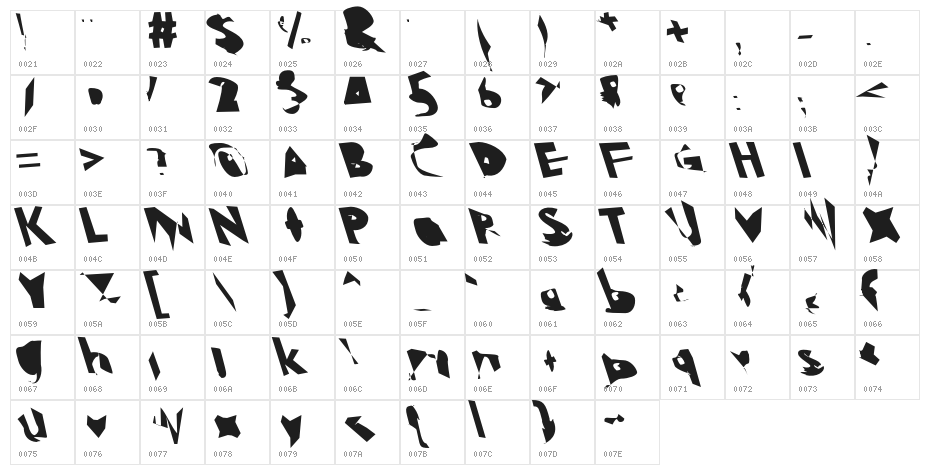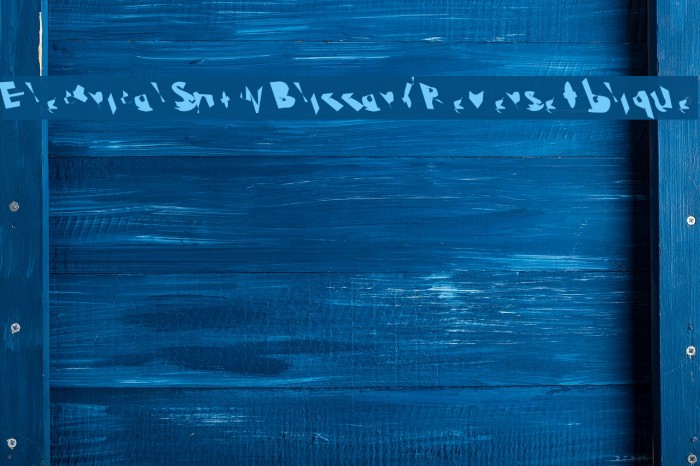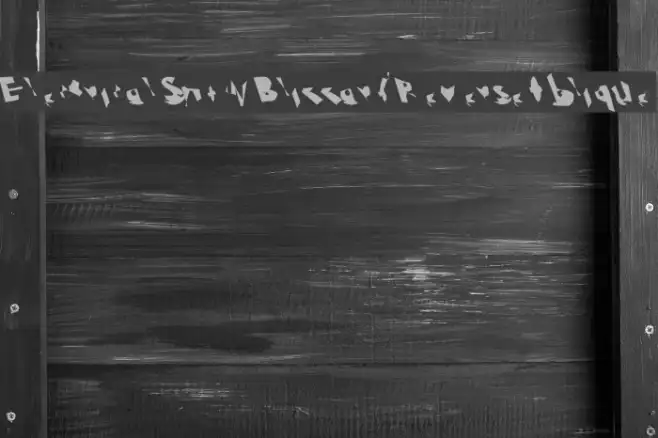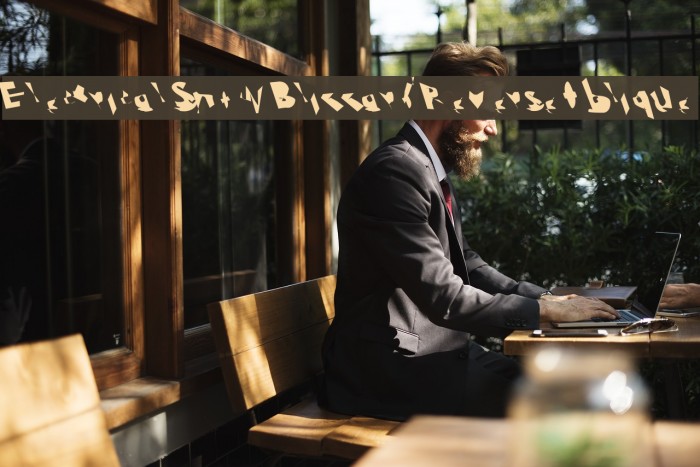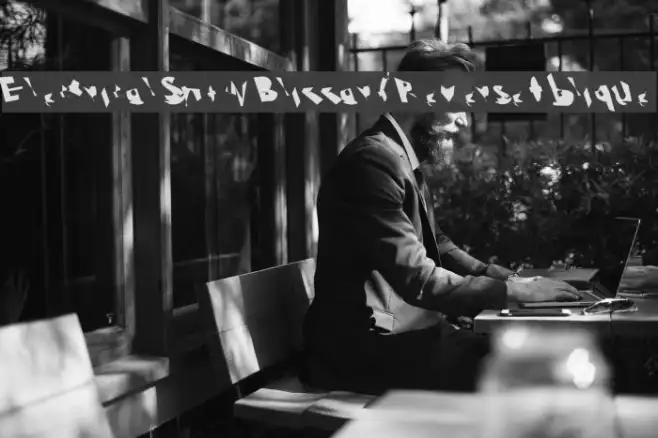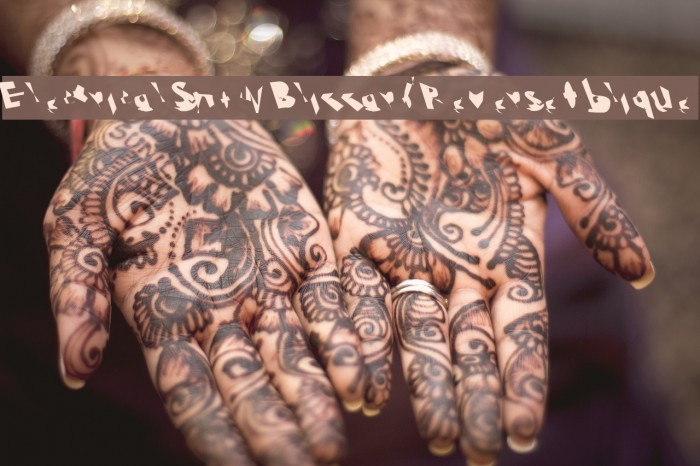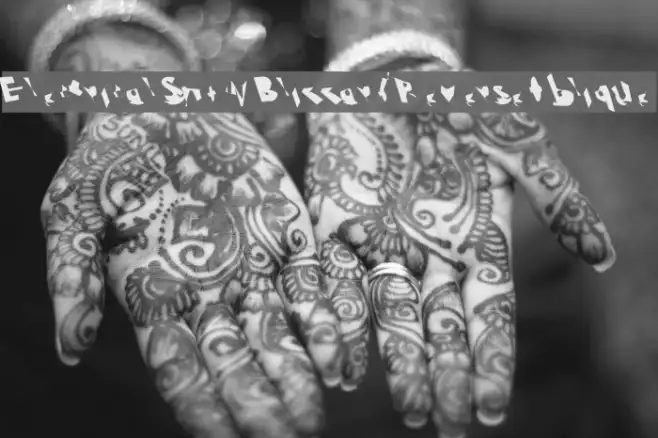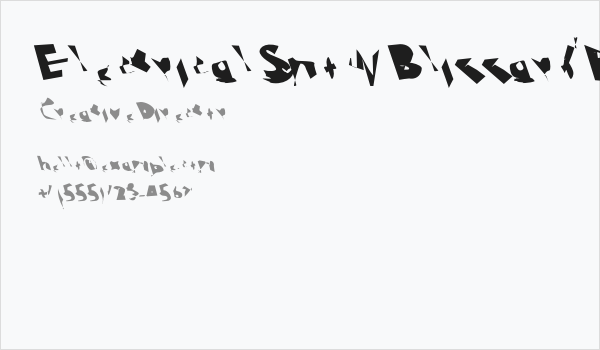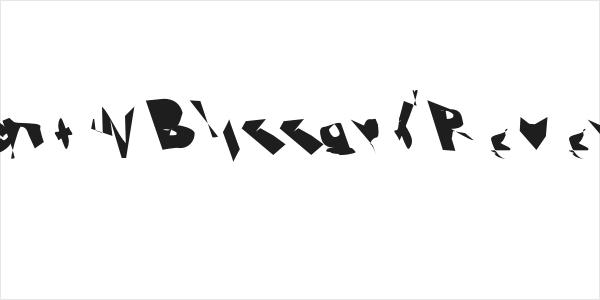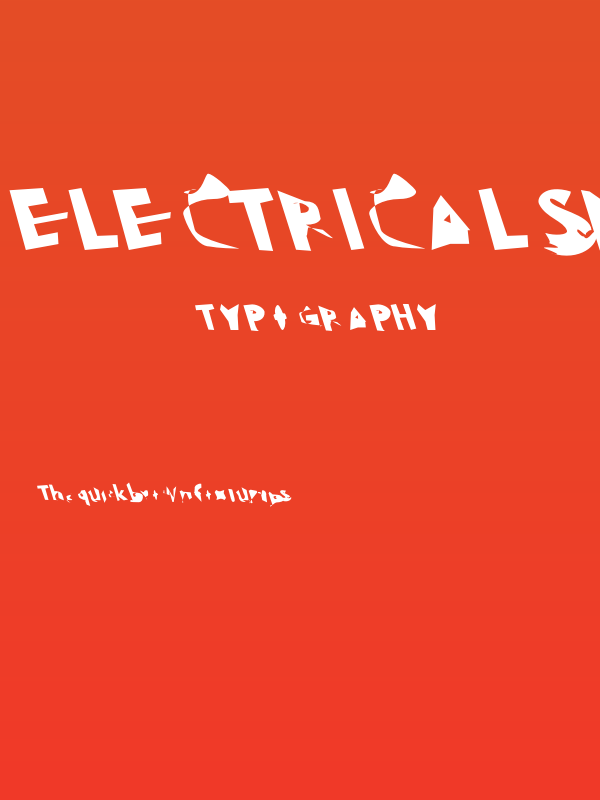
Electrical Snow Blizzard ReverseOblique Font
Electrical Snow Blizzard ReverseOblique Description
This font features a highly abstract and fragmented design, with characters appearing as if they are being blown apart by a strong wind or blizzard. The letters are distorted and irregular, creating a chaotic and dynamic visual effect. The uppercase and lowercase letters, as well as numbers and special characters, all share this unique, disjointed style. The overall appearance is bold and eye-catching, making it suitable for projects that require a strong visual impact. The font's unconventional and artistic nature makes it ideal for creative and experimental designs.
| Overall Style | Modern, Abstract |
| Use Case | Headlines, Logos, Artistic projects |
| Proposed Projects | Album covers, poster designs, avant-garde art projects, and experimental branding. |